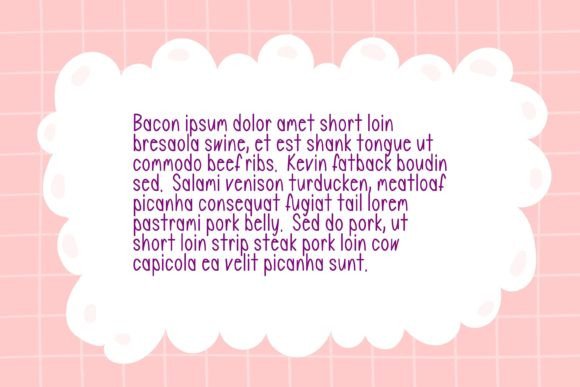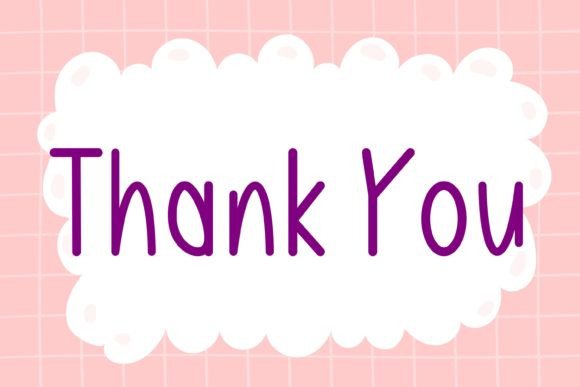
Introduction to Evgeni Font
Evgeni is a simple and friendly handwritten font.
Whimsical and a bit quirky, this font will brighten up each of your designs Add it confidently to your projects, and you will love the results.
Evgeni Font offers exceptional quality and versatility, making it a valuable addition to your design toolkit. Whether you’re creating for personal projects or commercial use, Evgeni Font delivers professional results.